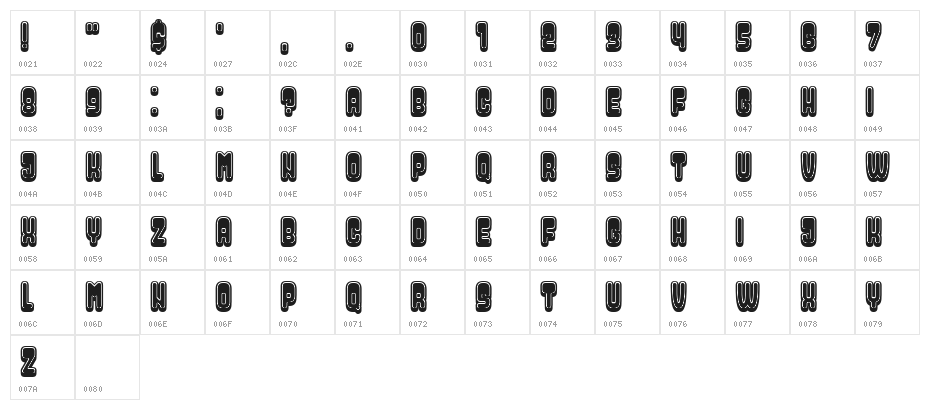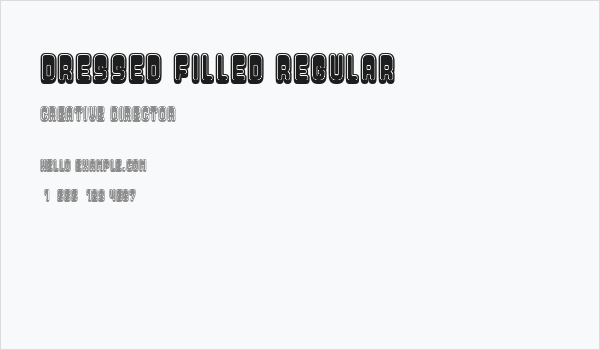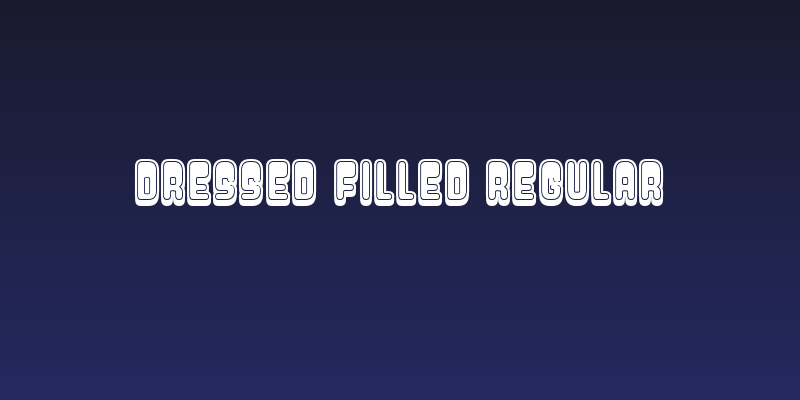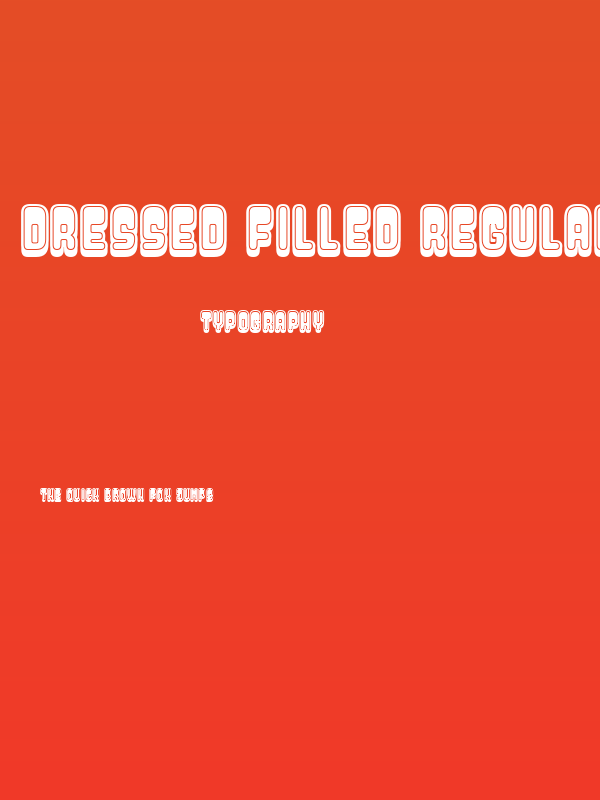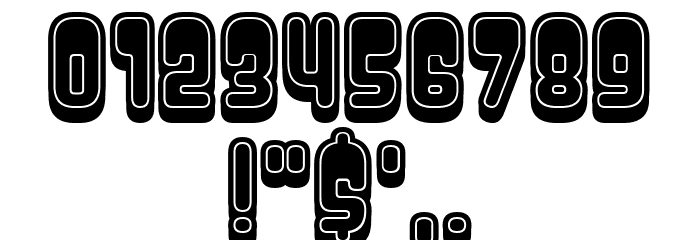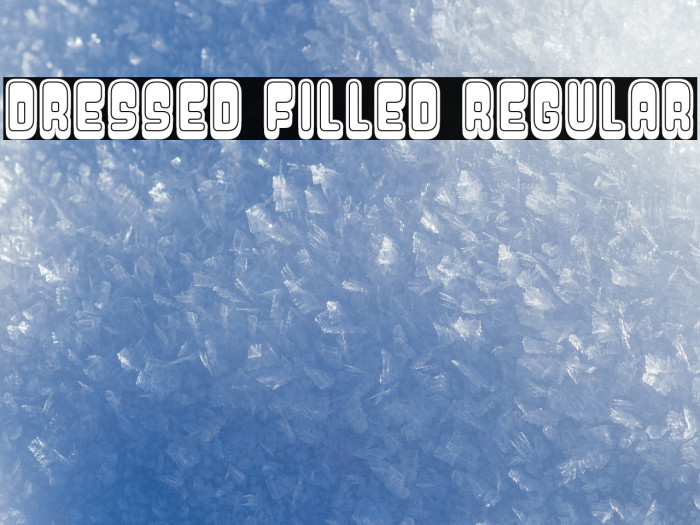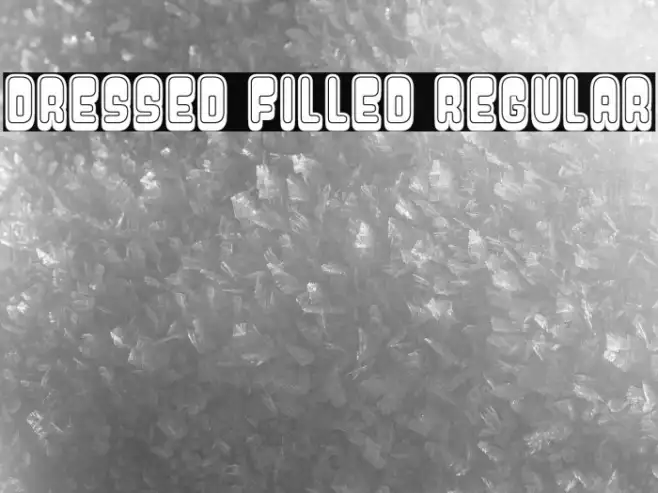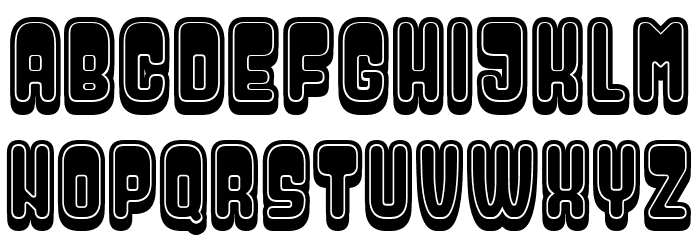
Dressed Filled Regular Font
Dressed Filled Regular Description
This font features a bold, rounded style with a distinct outline that gives it a three-dimensional appearance. The characters are uniformly thick, with a playful and modern aesthetic. The uppercase and lowercase letters maintain a consistent width, contributing to a cohesive look. The numbers and special characters follow the same design principles, ensuring uniformity across all glyphs. The font's filled nature and outlined edges make it stand out, making it ideal for eye-catching designs. Its playful yet structured form is perfect for projects that require a bold statement.
| Proposed Projects | Ideal for posters, logos, headlines, and any design requiring a bold, playful touch. |